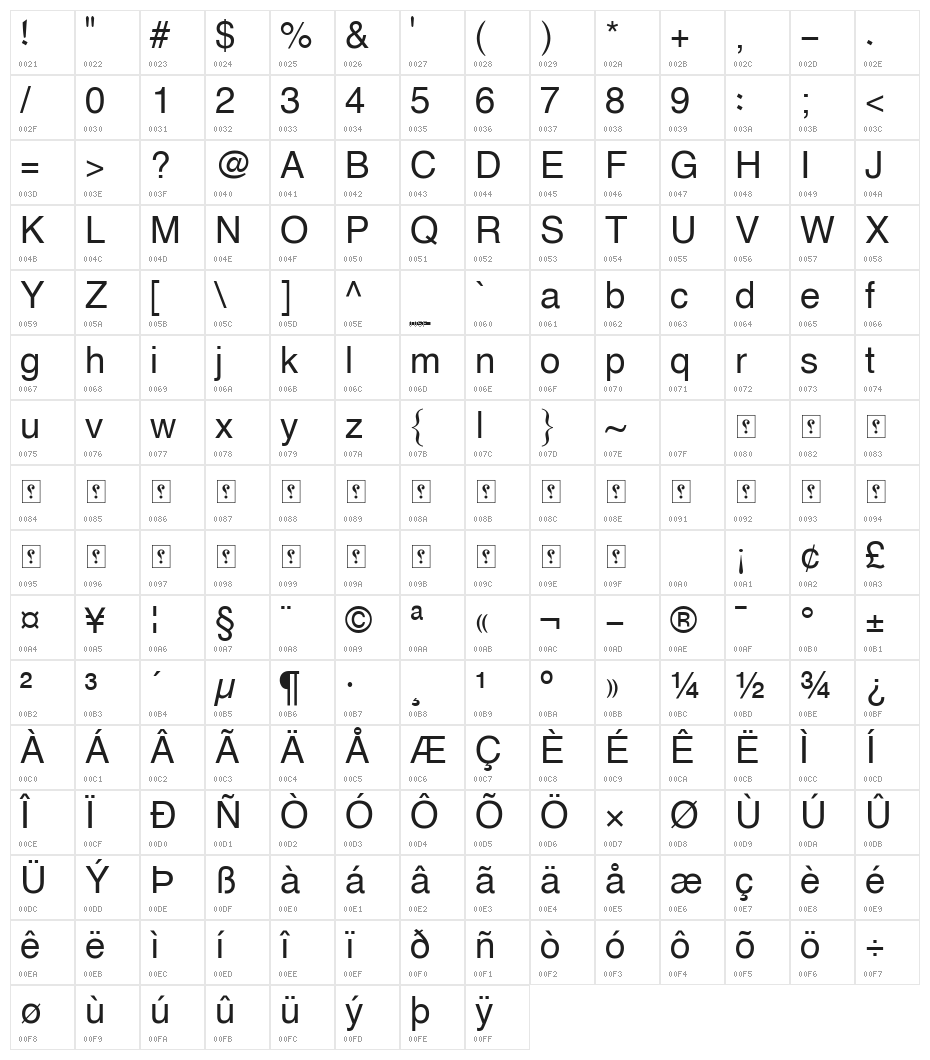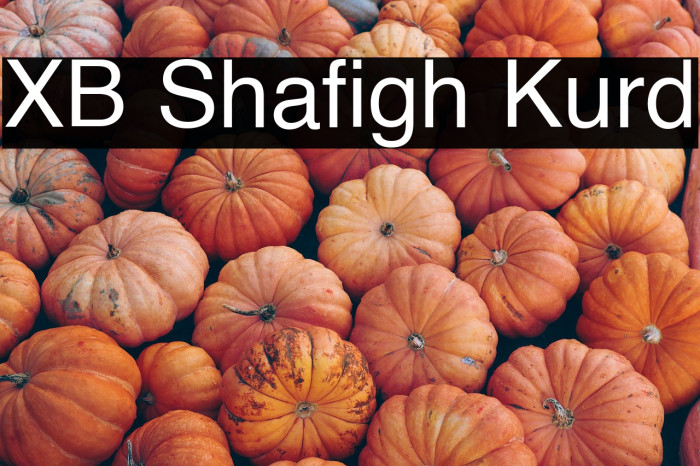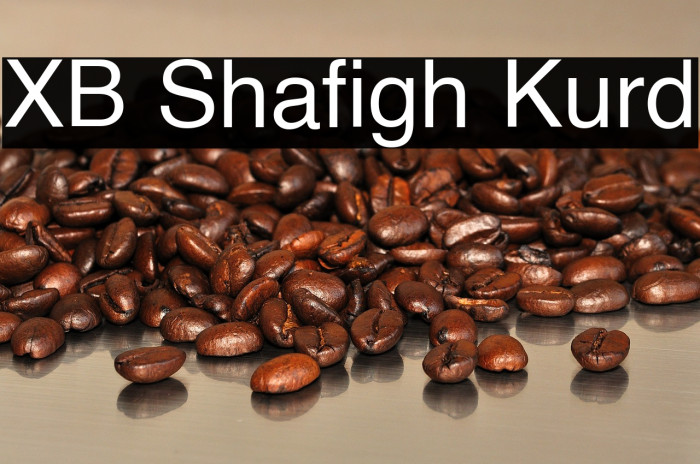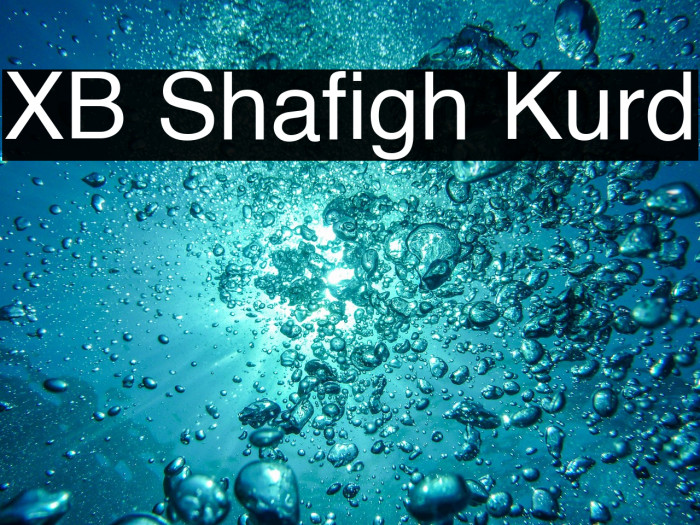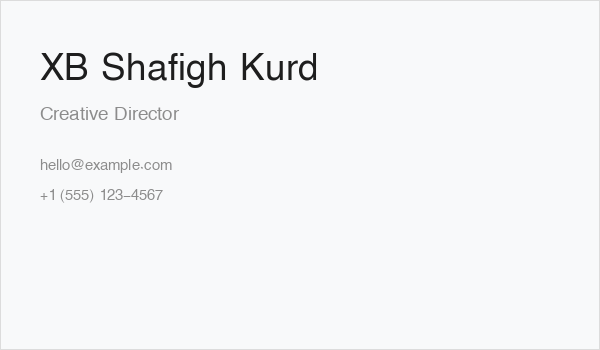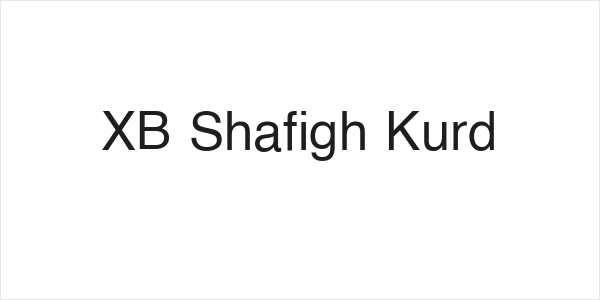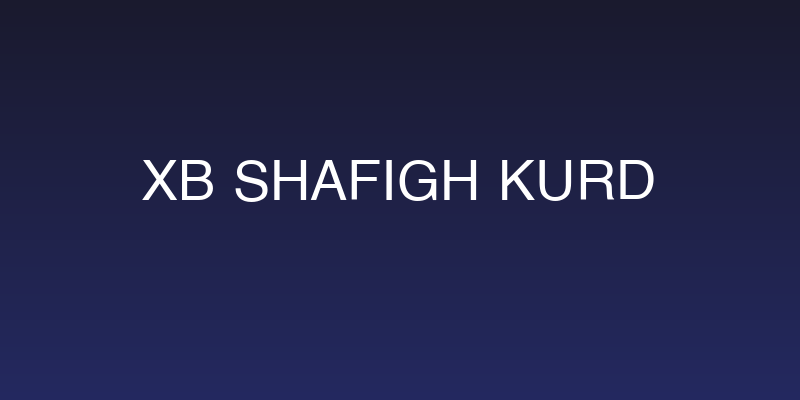
XB Shafigh Kurd Font
XB Shafigh Kurd Description
This font features a clean and modern sans-serif design, characterized by its simplicity and clarity. The letters are evenly spaced with a uniform stroke width, providing a balanced and harmonious appearance. The uppercase and lowercase letters maintain a consistent style, making it versatile for various applications. The numerals are clear and easy to read, while the special characters are well-integrated into the overall design. This font is suitable for both digital and print media, offering a professional and contemporary look.